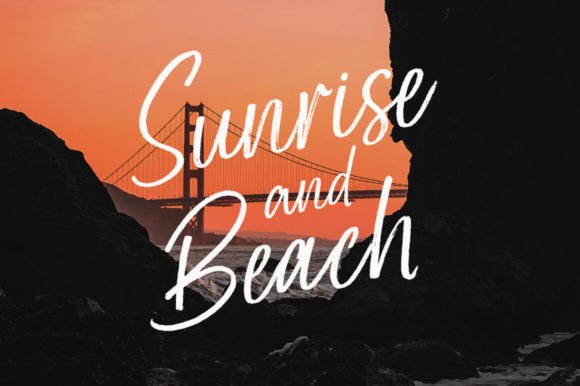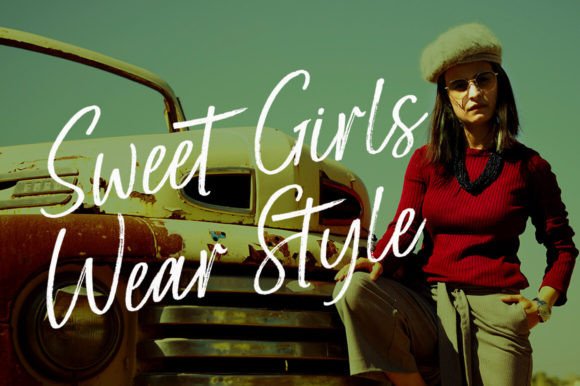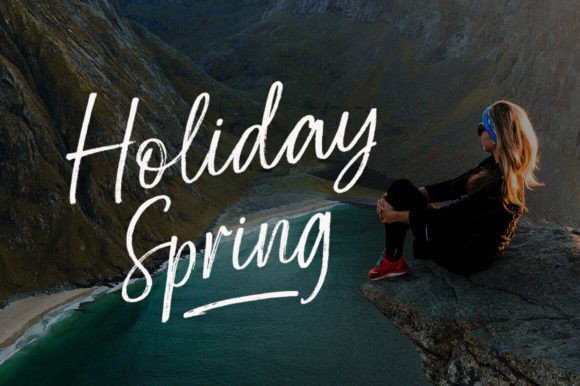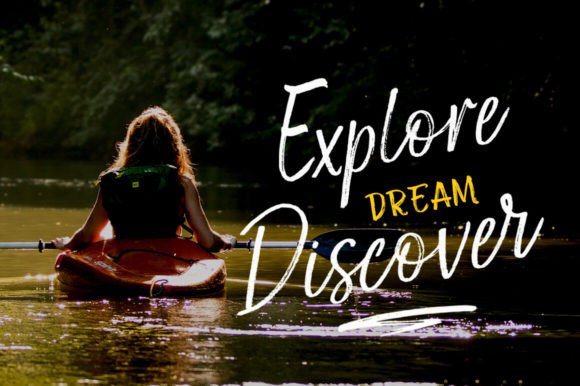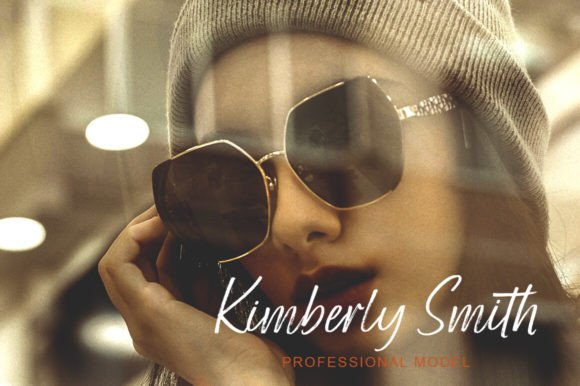
Introduction to Kelysia Font
Have you ever been stuck in a creative rut, searching for the perfect font to elevate your design project? You know, that moment when you’re staring at a blank page, and all you need is the right font to spark your imagination? For designers, finding the right font can be a game-changer. It’s what sets your work apart and gives it that extra oomph. That’s where the Kelysia Font comes in – a super casual hand-brushed script with a unique texture that’s sure to catch your eye.
With its detailed brush stroke texture and quirky charm, the Kelysia Font is perfect for a variety of creative projects. Whether you’re designing a title, signature, letterhead, or signage, this font is sure to add a touch of personality to your work. Plus, with a transparent background, it’s easy to customize and make it your own.
Key Features of Kelysia Font
- Unique, elegant font with a transparent background, perfect for overlaying on images.
- Designed to be highly legible and visually appealing, making it perfect for use in a variety of creative contexts.
Honest Review: Kelysia Font
I recently had the opportunity to work with the Kelysia Font, and I must say, I was impressed with its quality and versatility. As a designer, I’m always on the lookout for high-quality design resources that can elevate my creative projects. The Kelysia Font definitely delivers.
One of the standout features of the Kelysia Font is its transparent background, which makes it perfect for overlaying on top of images or other design elements. This is especially useful for creating visually appealing and engaging designs.
- High-quality design with a clean and modern aesthetic
- Transparent background for easy overlaying
- Only available in a limited number of font styles
- May not be suitable for complex or highly detailed designs
Overall, I’m really impressed with the Kelysia Font, and I think it’s a great addition to any designer’s toolkit. While it may have some limitations, its high quality and versatility make it a valuable resource for any creative project.
How to Use Kelysia Font
The Kelysia Font is a high-quality design resource ideal for creative projects. Its transparent background and versatile style make it suitable for various applications.
Tips for Getting the Most Out of Kelysia Font
Use the Kelysia Font in combination with other design elements to create a visually appealing design. Experiment with different font sizes, colors, and styles to achieve the desired effect.
The Kelysia Font is suitable for various creative projects, including logos, brochures, business cards, and social media graphics.
Q: Does the Kelysia Font have a transparent background?
Yes, the Kelysia Font features a transparent background, making it ideal for use on images or designs with complex backgrounds. This allows for seamless integration and a professional finish.
Q: Can I customize the Kelysia Font for my specific design needs?
While the Kelysia Font is a high-quality design resource, it is not intended for customization. However, you can use the font in conjunction with other design elements to create a unique look that suits your creative project’s requirements.